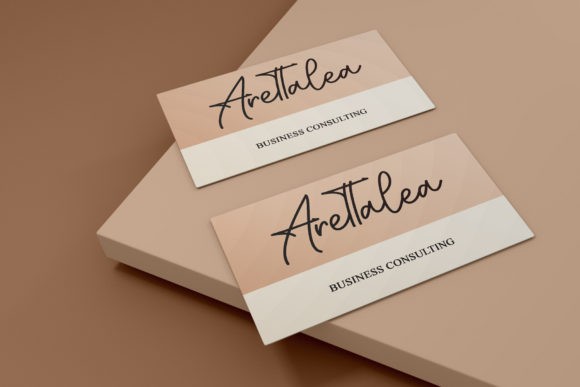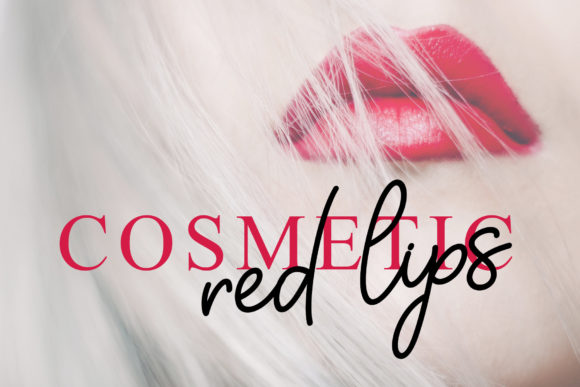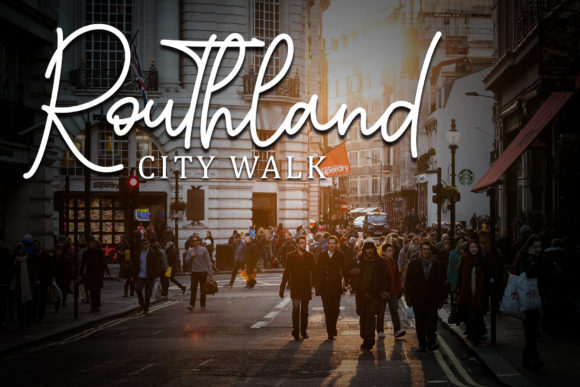
Introduction to Satherday Font
As a designer, there’s nothing quite like the thrill of discovering a new font that perfectly captures the essence of your creative vision. For me, it was the moment I stumbled upon the Satherday Font – a beautiful and refined script font that immediately elevated my latest design project to new heights. With its classy, elegant, and modern look, I knew I had to share it with the world.
Whether you’re working on a high-quality logo, branding materials, or wedding invitations, the Satherday Font is an invaluable design resource that can add a touch of sophistication to any project. Its versatility and refined style make it an excellent choice for designers looking to create unique and memorable designs that stand out from the crowd.
Key Features of Satherday Font
- High-quality design: The Satherday Font is a unique and creative project designed to cater to various design needs.
- Transparent background: This font features a transparent background, making it ideal for designs that require a subtle touch.
- Unique characteristics: The Satherday Font features a distinctive and modern design, making it an excellent choice for creative projects that require a unique touch.
Honest Review: Satherday Font
As a designer, I’m always on the lookout for high-quality design resources to enhance my creative projects. Recently, I had the chance to explore the Satherday Font, and I must say it’s a great addition to any designer’s toolkit.
What works well about the Satherday Font is its versatility. It’s available for free download, which is a major plus for designers on a budget. The font itself is modern and sleek, making it perfect for a wide range of applications, from branding to digital design.
- ✨ High-quality design: The Satherday Font is well-designed and visually appealing.
- ✨ Transparent background: The font has a transparent background, making it easy to use with any design element.
- ⚠️ Limited character set: The font only includes a limited character set, which may not be suitable for all design projects.
- ⚠️ No bold or italic options: The font does not come with bold or italic options, which may limit its use in certain design contexts.
Overall, the Satherday Font is a solid design resource that can add a touch of modernity to your creative projects. While it has some limitations, its free download and high-quality design make it a great choice for designers on a budget.
Tips for Getting the Most Out of the Satherday Font
Use the Satherday Font with a transparent background to create a clean and modern design.
Experiment with different font sizes and styles to add depth to your design.
The Satherday Font is ideal for:
Creating social media graphics.
Designing business cards.
Developing marketing materials.